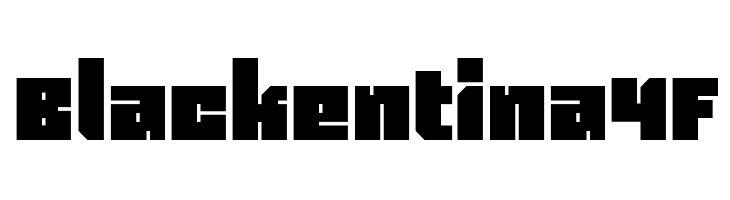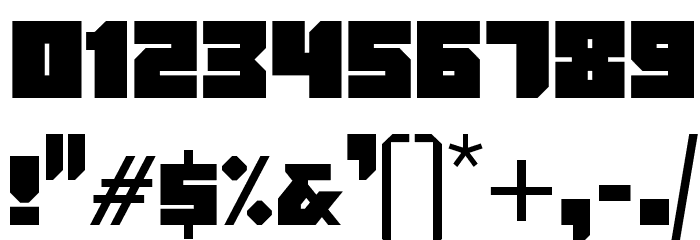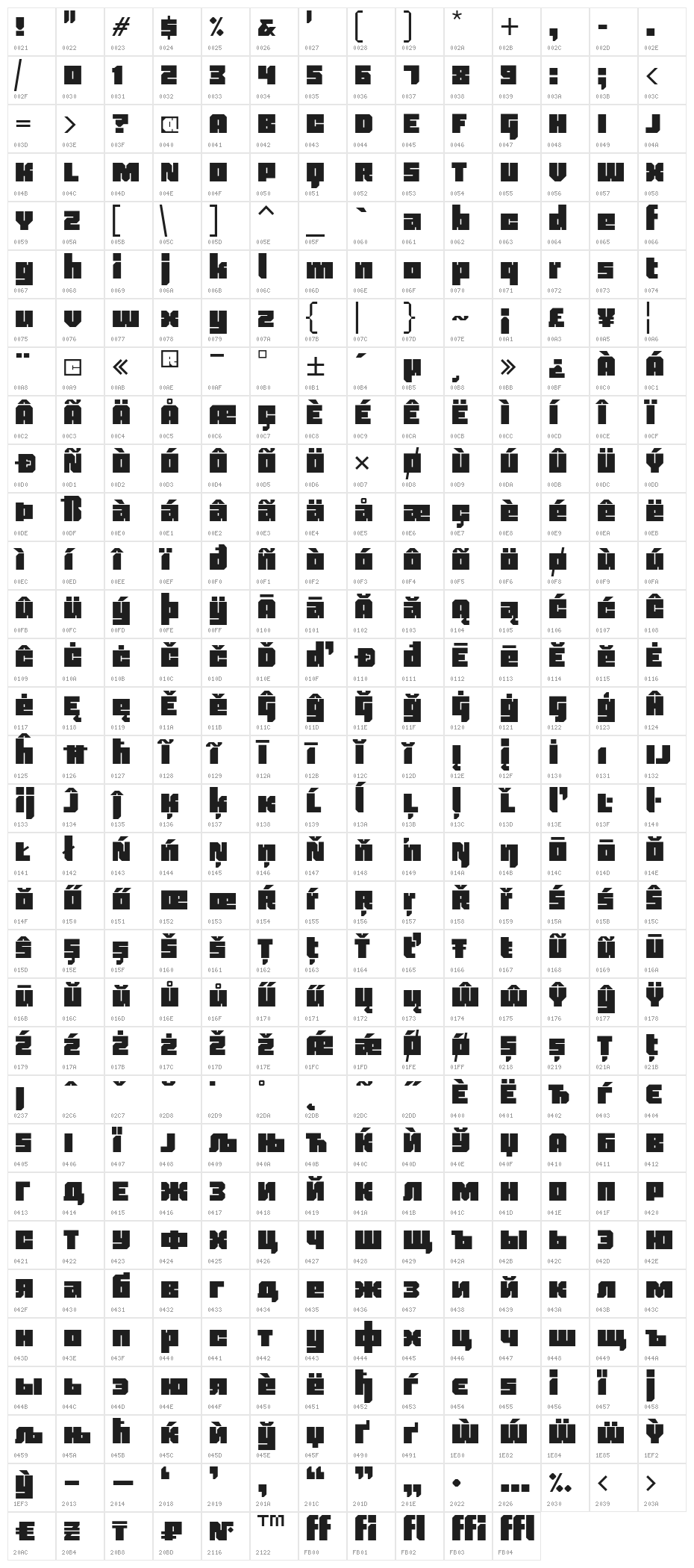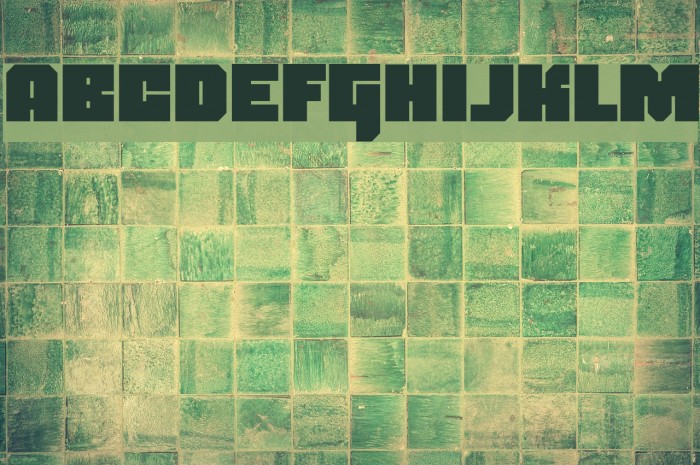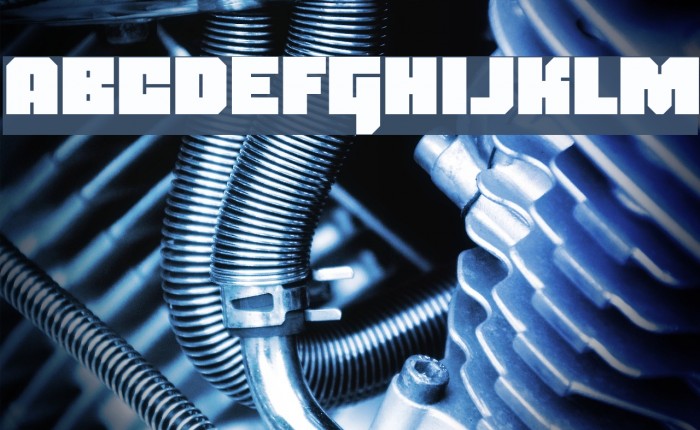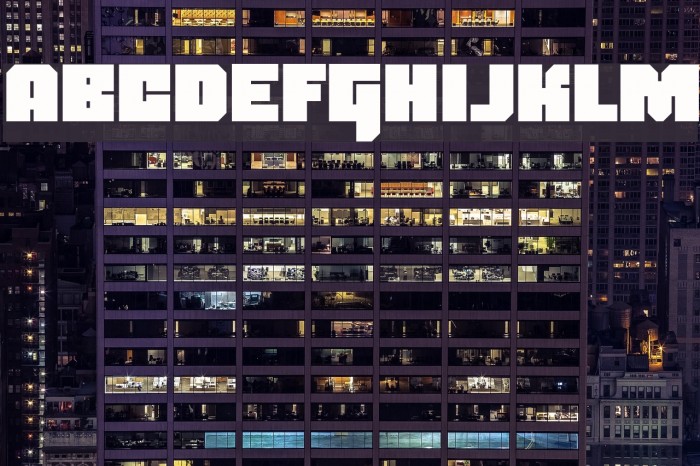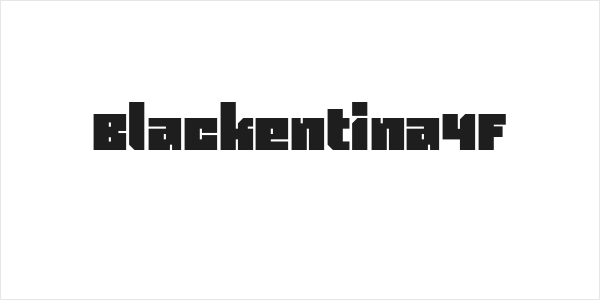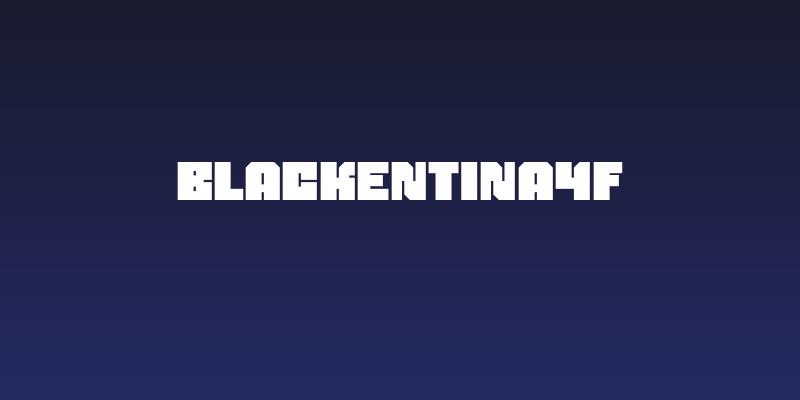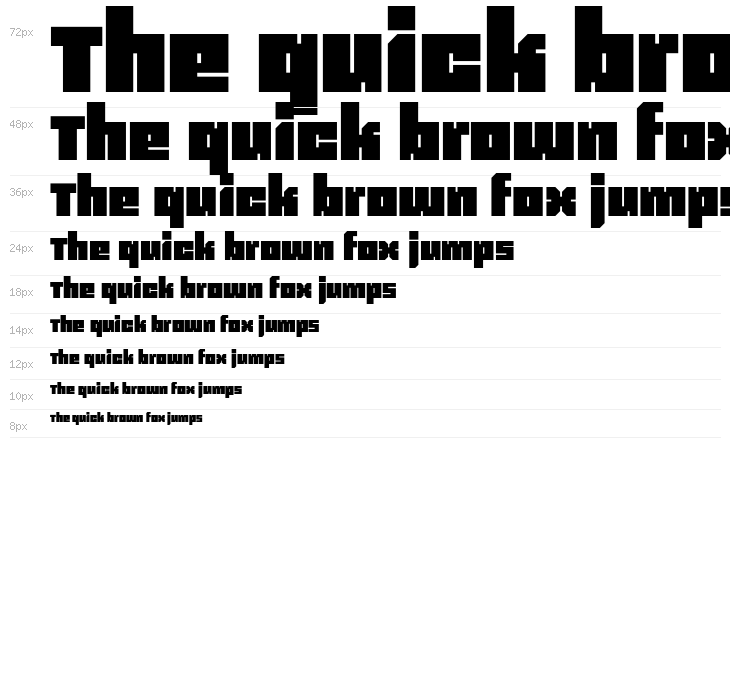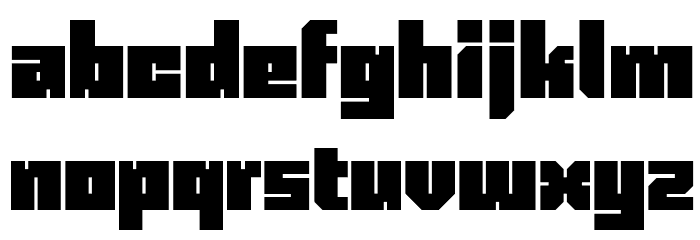
Blackentina4F Font
Blackentina4F Description
This font features a bold and geometric design with strong, angular lines and a blocky appearance. The characters are uniformly thick, creating a powerful and impactful visual presence. The uppercase and lowercase letters maintain a consistent style, with sharp edges and a modern aesthetic. The numerals and special characters follow the same bold and structured design, ensuring uniformity across all glyphs. This font's distinct style makes it suitable for attention-grabbing headlines and modern design projects.
| Proposed Projects | Ideal for branding, posters, headlines, and any design requiring a strong visual impact. |